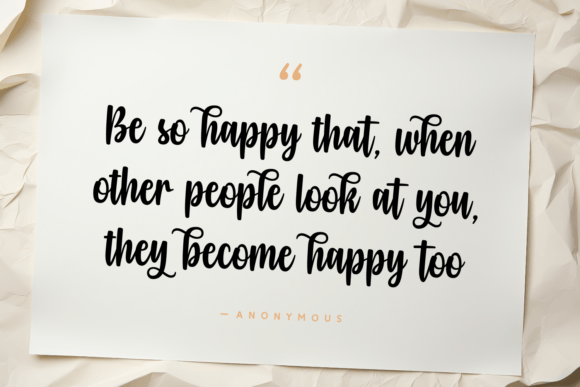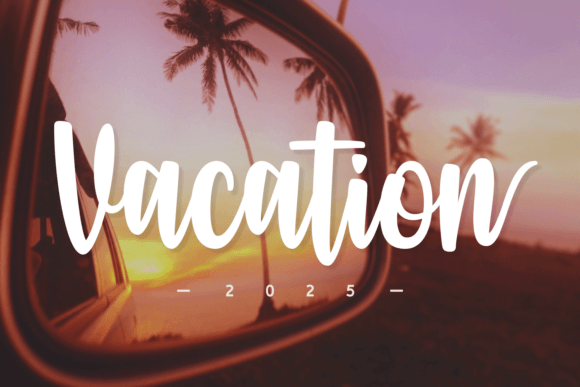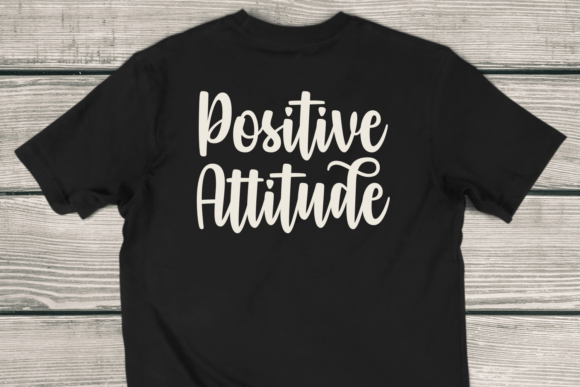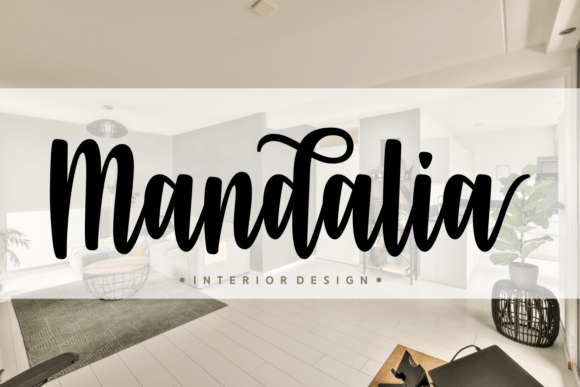
Brittiany Signature Font: Elevate Your Designs with Elegance and Sophistication
In the world of design, typography plays a crucial role in conveying the tone and personality of a brand or project. Among the numerous fonts available, Brittiany Signature stands out as a stunning bold calligraphy font that embodies modern elegance and sophistication. Its unique flowing letters and smooth curves make it an ideal choice for designers and crafters looking to add a personal touch to their creations.
What Makes Brittiany Signature Font Special?
Brittiany Signature is not just another font; it’s a statement piece that can elevate your designs to new heights. Here are some key features that make it special:
- Modern and Elegant Style: Brittiany Signature boasts a contemporary and refined aesthetic that is perfect for designs that require a touch of sophistication.
- Flowing Letters and Smooth Curves: The font’s fluid lines and smooth curves create a beautiful, hand-crafted look that adds a personal touch to any design.
- Bold Calligraphy Style: The bold nature of the font ensures that your designs stand out, making it ideal for headings, titles, and emphasis text.
- Versatility: Brittiany Signature can be used across various design projects, including invitations, logos, cards, and more.
Whether you’re a professional designer or a crafter looking to add a unique touch to your projects, Brittiany Signature is an excellent choice. Here are some ways you can use this beautiful font:
- Invitations: Add a touch of elegance to your wedding invitations, event invites, or any other formal announcement.
- Logos and Branding: Use Brittiany Signature to create a memorable and sophisticated brand identity.
- Cards and Stationery: Elevate your greeting cards, thank-you notes, and stationery with a personal and stylish touch.
- Digital Designs: Incorporate Brittiany Signature into your digital projects, such as social media graphics, blog headers, and more.
Tips for Using Brittiany Signature Font
To get the most out of Brittiany Signature, here are some tips to keep in mind:
- Pair with Complementary Fonts: Combine Brittiany Signature with simpler fonts to create visual interest and hierarchy in your designs.
- Experiment with Colors: Take advantage of the font’s elegance by using it with a range of colors that match your brand or project’s aesthetic.
- Play with Sizes: Use Brittiany Signature in various sizes to create emphasis and add depth to your designs.
Brittiany Signature Font is a versatile and elegant addition to any designer’s or crafter’s toolkit. Its modern calligraphy style, flowing letters, and smooth curves make it perfect for adding a personal touch to a wide range of projects. By incorporating Brittiany Signature into your designs, you can elevate your work and create stunning pieces that leave a lasting impression.